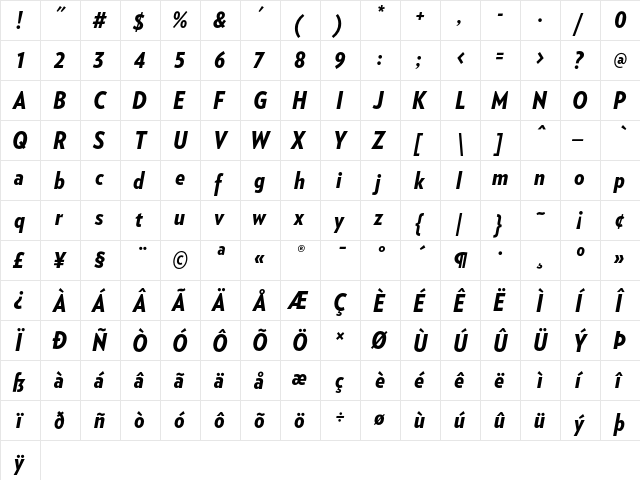
Verlag Condensed Black Italic
| Foundry | Hoefler & Frere-Jones |
| Designer | Hoefler & Frere-Jones |
Design Context for Verlag Condensed Typeface
Verlag Condensed is a composed and adaptable typeface that performs quietly and consistently across a wide range of design contexts. Its italic angle brings a sense of urgency and motion to the letterforms. Its narrow stance lets it pack a punch even in space-constrained designs.
Pro Tip: Use Verlag Condensed for emphasis, pull quotes, and subheadings where its slanted energy can add rhythm to the layout.